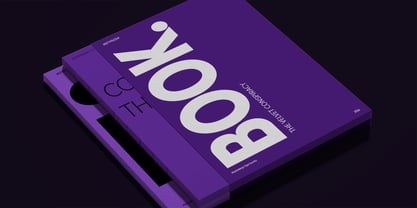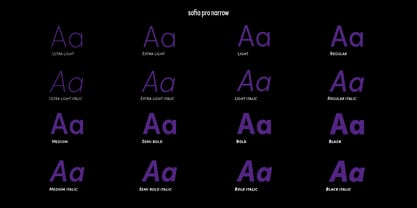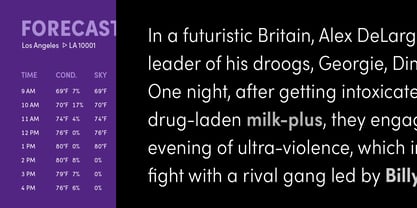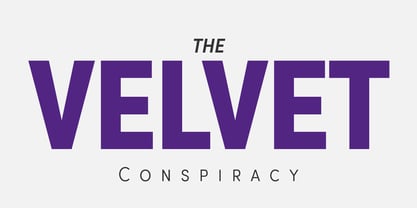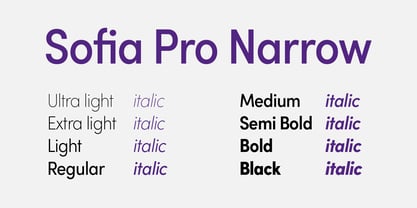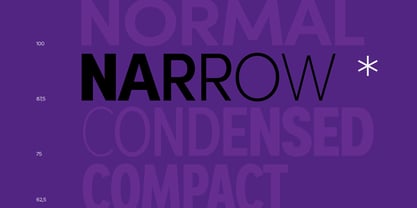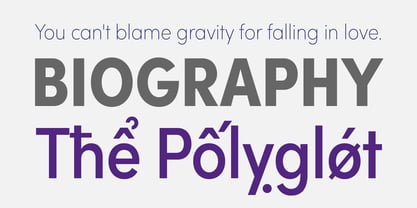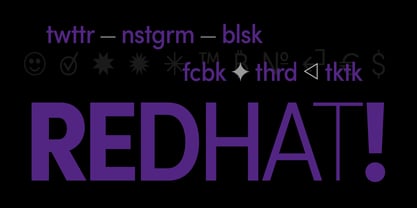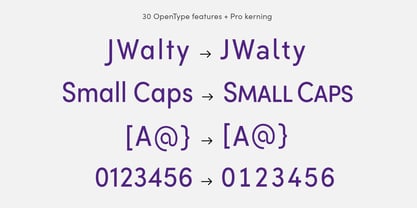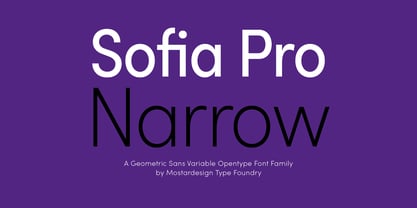
Sofia Pro Narrow
Die Schriftfamilie Sofia Pro Narrow wurde von Olivier Gourvat entworfen und von Mostardesign veröffentlicht. Sofia Pro Narrow enthält 18 Stile und Familienpaketoptionen.
Sofia Pro Narrow retains the modern geometric elegance of the original Sofia Pro while offering a more compact and space-efficient design. With its refined proportions and clean lines, it’s ideal for layouts where clarity and style must fit within tighter spaces. Featuring multiple weights, extensive language support, and variable font options, Sofia Pro Narrow delivers flexibility without compromising readability. Whether for branding, editorial, or digital design, it provides a sleek, contemporary look with the same warmth and precision that define the Sofia Pro family.
Designer: Olivier Gourvat